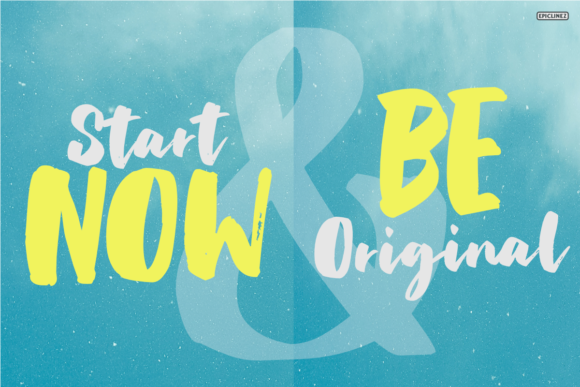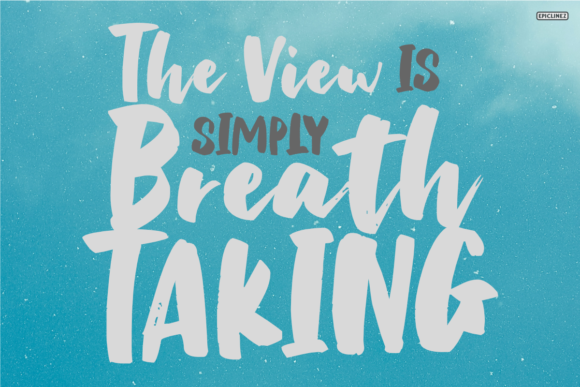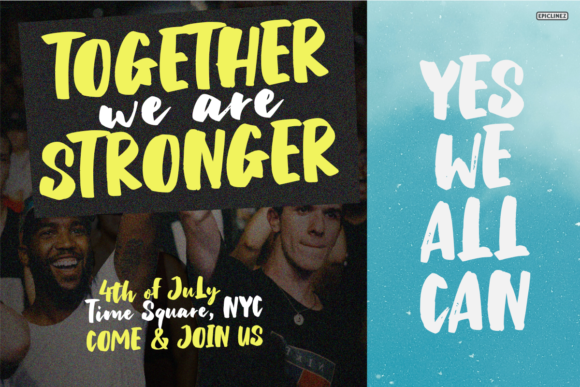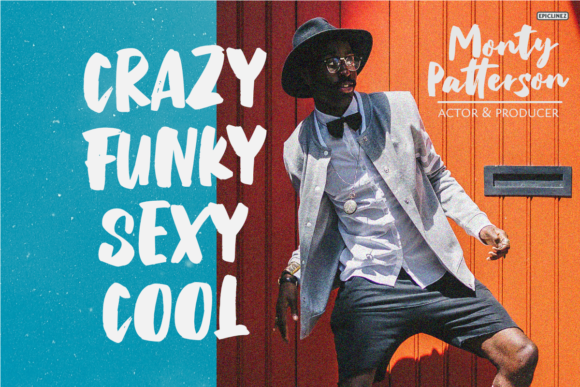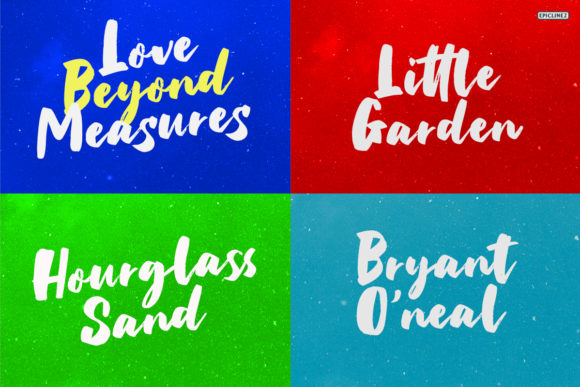
Pretty Lily Font
About Pretty Lily Font
Pretty Lily is a cool and urban styled handwritten font, designed with the help of a brush pen. It is the best choice for creating eye catching logos, branding and quotes.